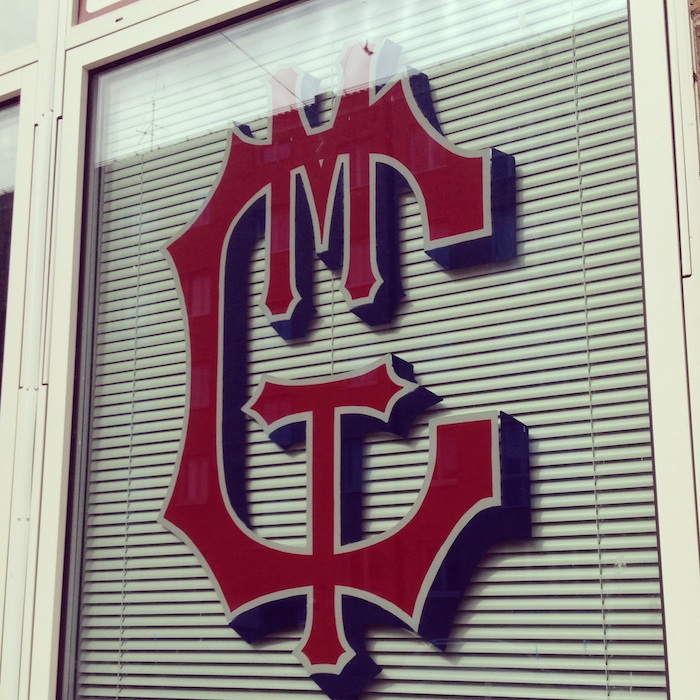
Reverse job on double-glazed windows
Im still going strong, my one man operation of learning and working simultaneously is slowly growing and i have my third reverse glass lettering job lined up for next week, yay :)
I was hoping that maybe someone might have some input or experience in doing reversed glass jobs on sealed double and triple glazed windows, im not sure i've found the correct english term, but i mean those windows that have several sheets of glass in a single frame for energy saving purposes.
I have a client who asked me to do their studio logo (white, lapis lazuli blue and antique red so its pretty somber) and they have the aforementioned type of frame and its not possible to access the outermost sheet.
I was wondering wether i should brighten my colours a little to compensate for the extra layers of reflective surface in front of the paint, im pretty sure it will come out with slightly less "oumpf" if i dont, not drawing the eye quite as well.
only one way to know...put a smear of paint on the back and go outside and take a look...only way to assess if you need to adjust the color.
I sometimes do this with pale colors, especially white, and will sometimes adding a little extra red to counter the green cast of standard float glass.
You can't control a shop window, but for studio work and paintings on glass, i will choose low iron glass for high value projects or ones that have white areas.
Of course, wouldnt have thought of it but it seems so obvious now. Im going to need a pair of glasses for my brain i suspect.
Yes, a dash of red it is! Im going in a few days and will do a field test.
Good advice on the low iron glass too!
Sorry guys, forgot to post how it actually turned out. We agreed to make the blue a bit darker for contrast.
Tried adding red in the white and i thought it looked a little more subdued somehow, and the standard white wasnt affected as bad as i thought by the greenish tint of the glass so i opted for unmixed white, turned out nicely.
The original design was made by the customer and was available in about a fourth of the size i needed, i'm not sure if it's a font originally, but i had to tweak the proportions of the M and T a bit to make it work like a monogram.
Im a poor photographer and an even worse photo-editing-person so the white outline looks a little gray here, but walking by its really popping!